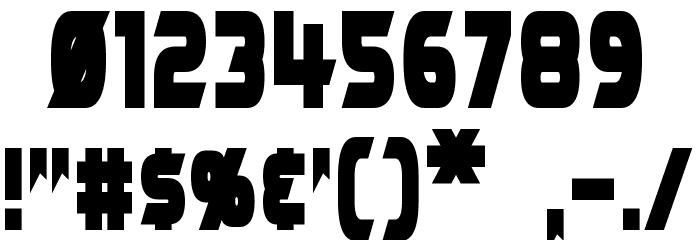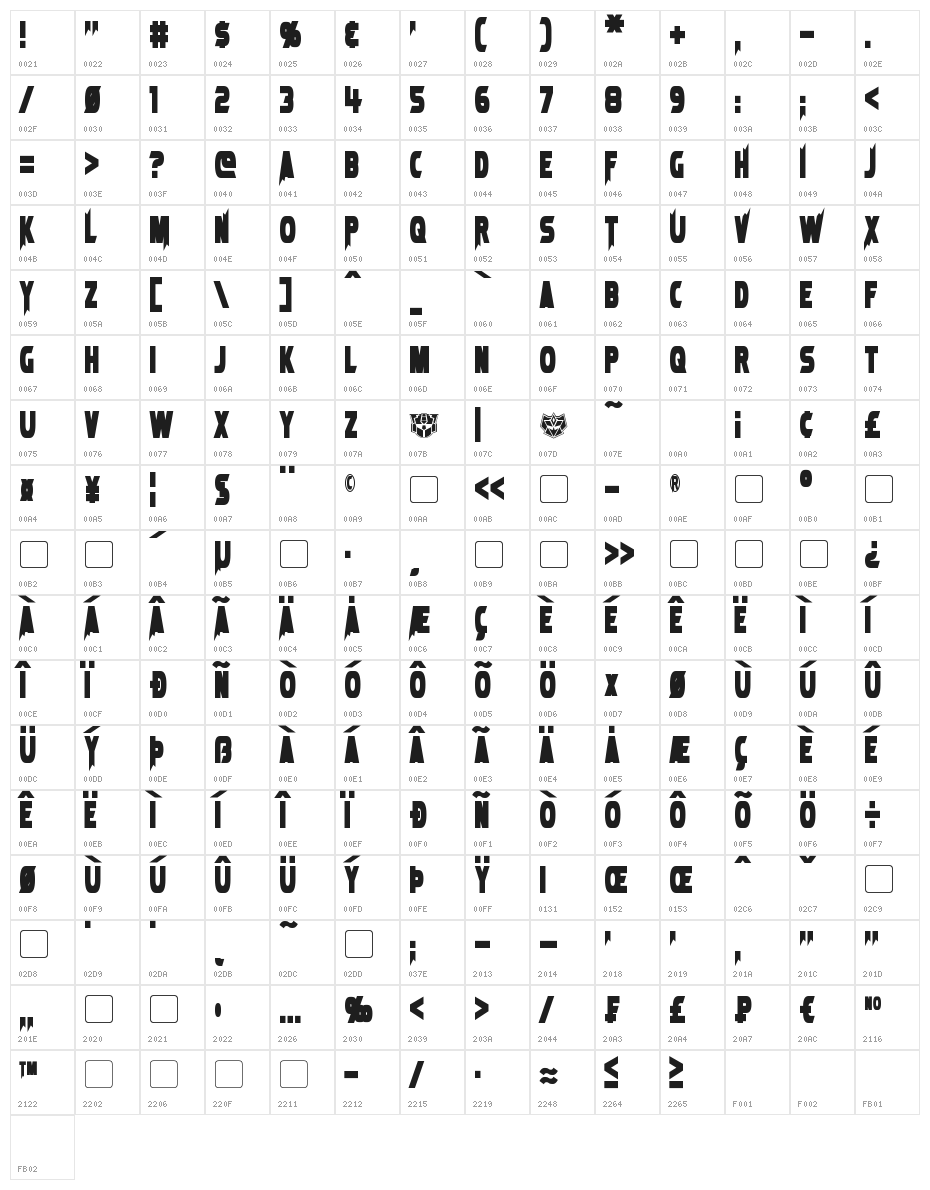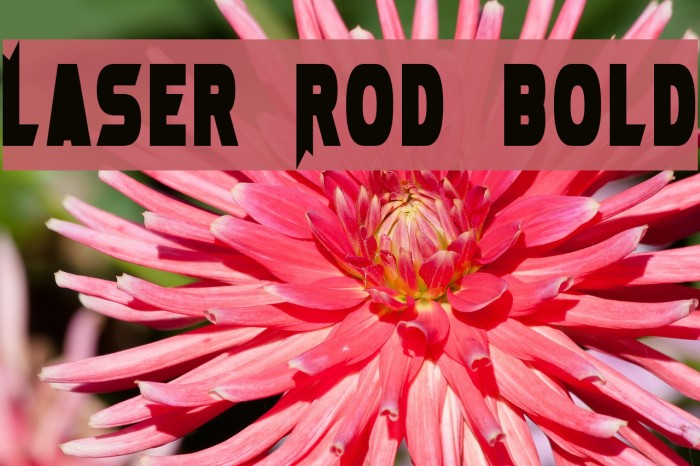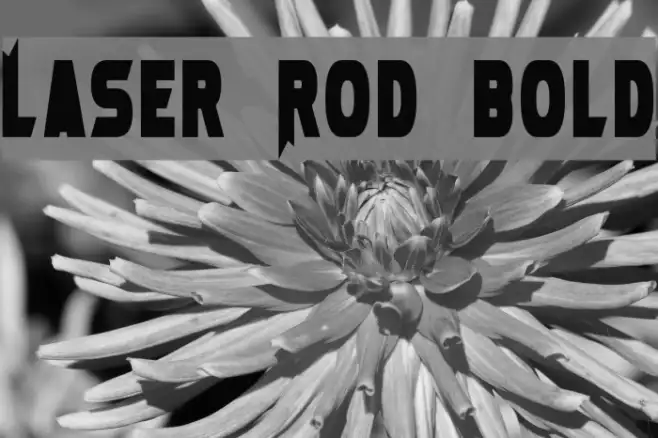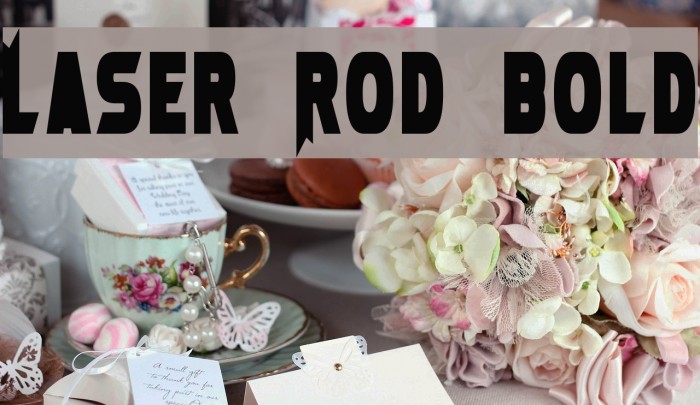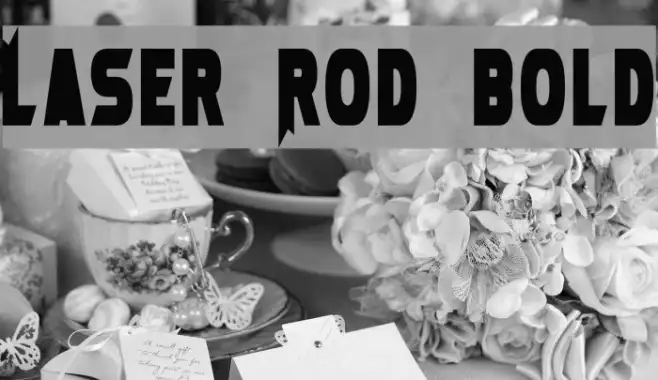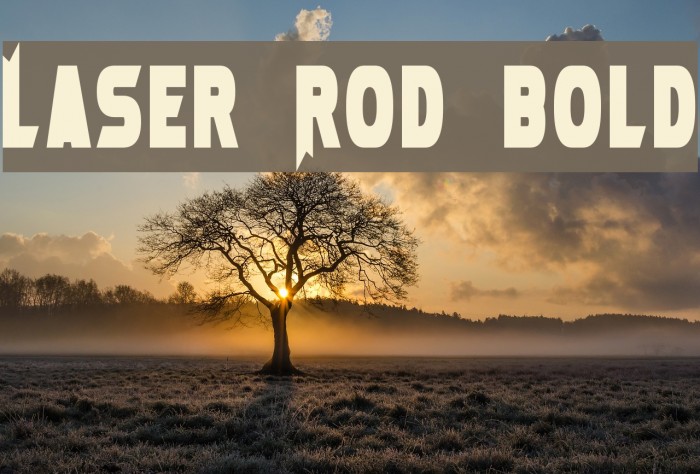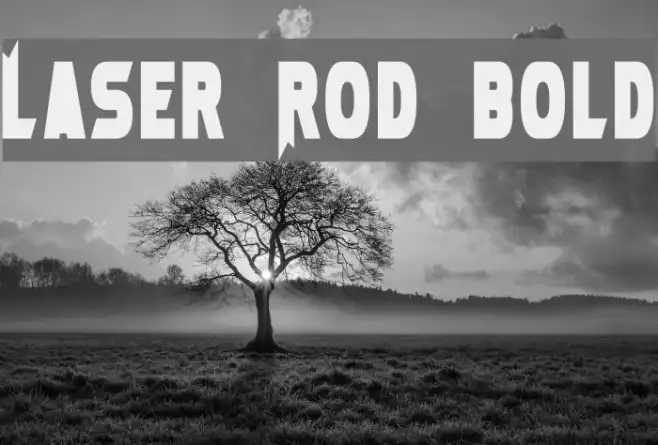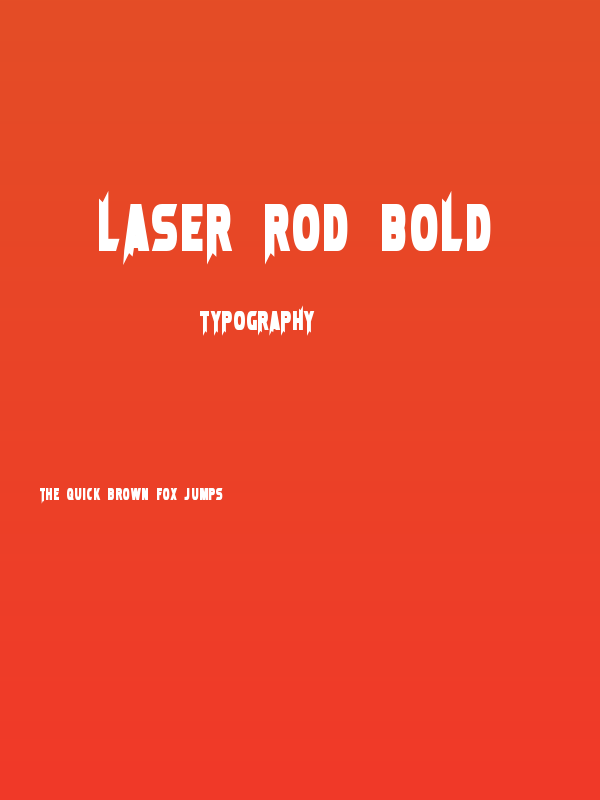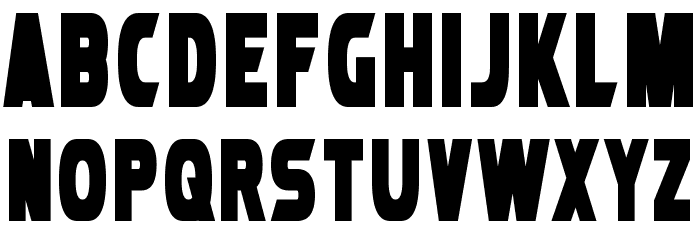
Laser Rod Bold Font
Laser Rod Bold Description
This bold and striking font features sharp, angular edges and a futuristic design. The uppercase letters are particularly distinctive, with jagged accents that give a sense of movement and energy. The numbers and special characters maintain this dynamic style, making the font ideal for attention-grabbing headlines or logos. Its bold weight and high contrast in stroke thickness enhance its visibility and impact. The character spacing is tight, contributing to its compact and powerful appearance. This font's unique style makes it suitable for projects that require a modern and edgy aesthetic.
| Proposed Projects | Ideal for sci-fi themed posters, video game titles, or edgy brand logos. |